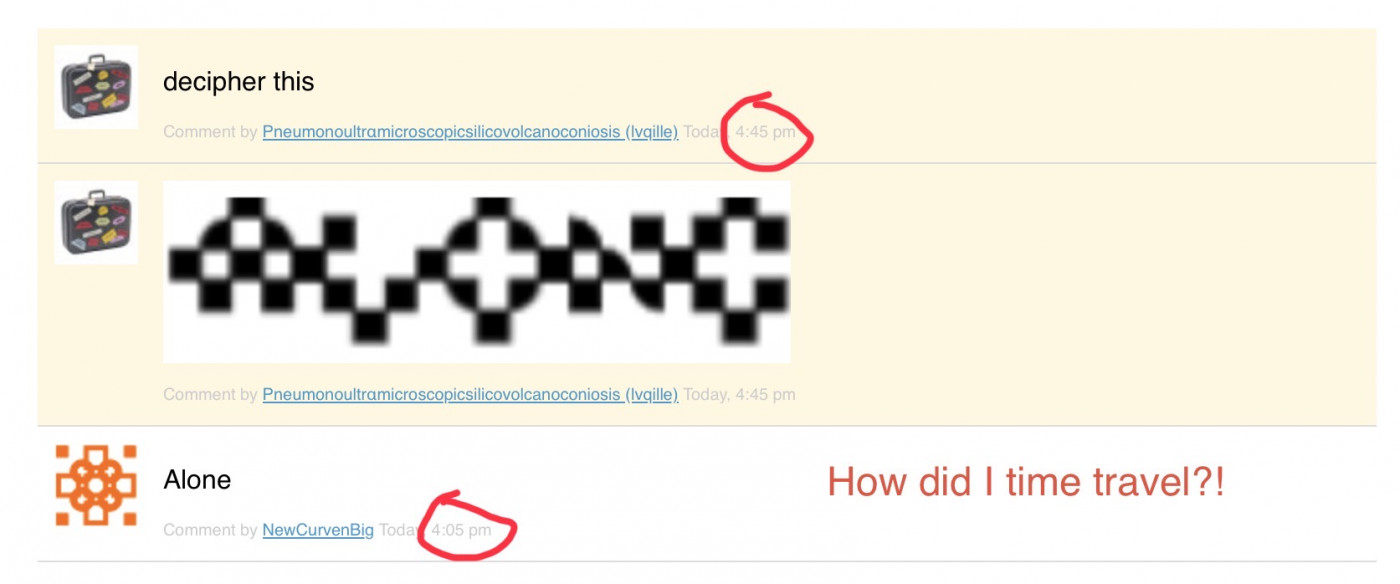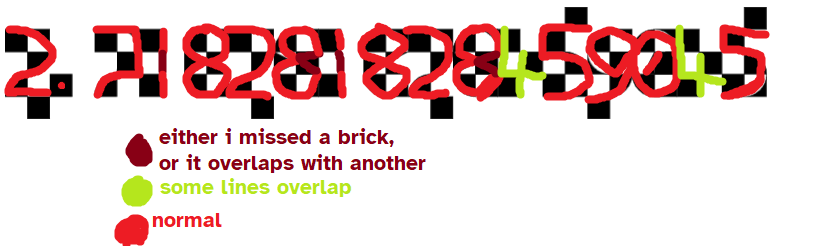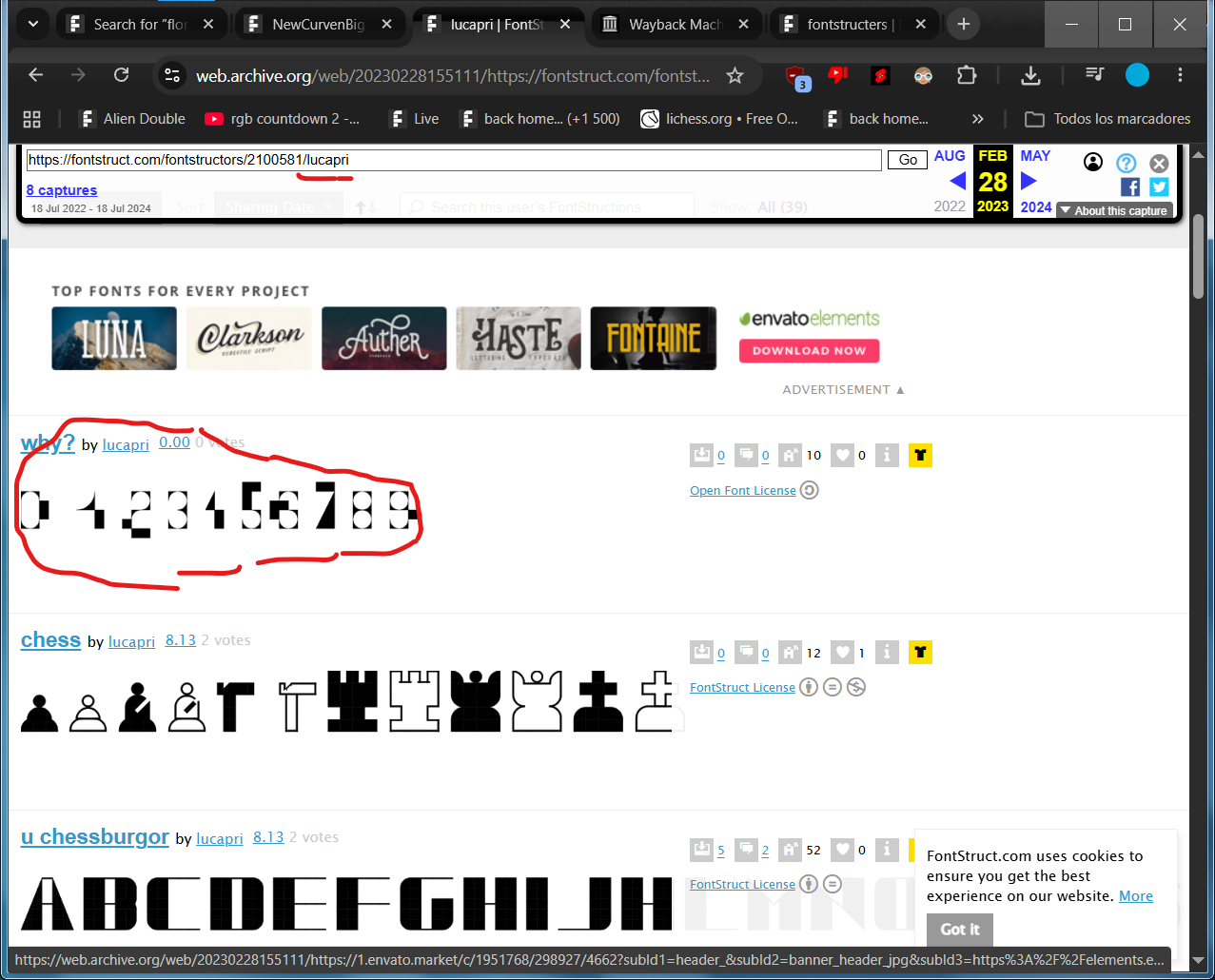
• i have no intentions to continue this, but if you insist, i will extend the font, but i will give a puzzle
decipher this
Alone
HOW DID I TIME TRAVEL?!
@NewCurvenBig now, attempt to find the word in there
What do you mean by that, @Pneumonoultrαmicroscopicsilicovolcanoconiosis (Ivqille)? I already did it!
you lose
sorry i meant that you have to find the word "alone" in the image with ms paint (if you do not have windows, then screw you)
I don't
I'm screwed
I agree with @doddwell
everytime i add something i will make another one of these
(number)
But please, let me clone this font for good letters (and numbers) instead of this mess? Thank you.
the messy letters are the whole point
Like the T is almost undecypherable, while the letter O is *clearly* the letter O.
i had these alternatives for I and T in mind but i wanted to make this monospace
But why has it turned into a substitution cipher?
it's not a substitution cipher
Yeah, and what are the equivalents of the other 24 letters?
none
So, the pangram "the quick brown foxes jump over lazy dogs" turns into "t__ __i__ _____ _____ ____ ____ ____ ____"
Oh, I remember when lvqille was just a suitcase...
ok
so this is how you resolved the second sample, it was kinda weird
hey so it turns out this wasn't the only time i tried to do this
[sample] (from lucapri's web.archive.org site)